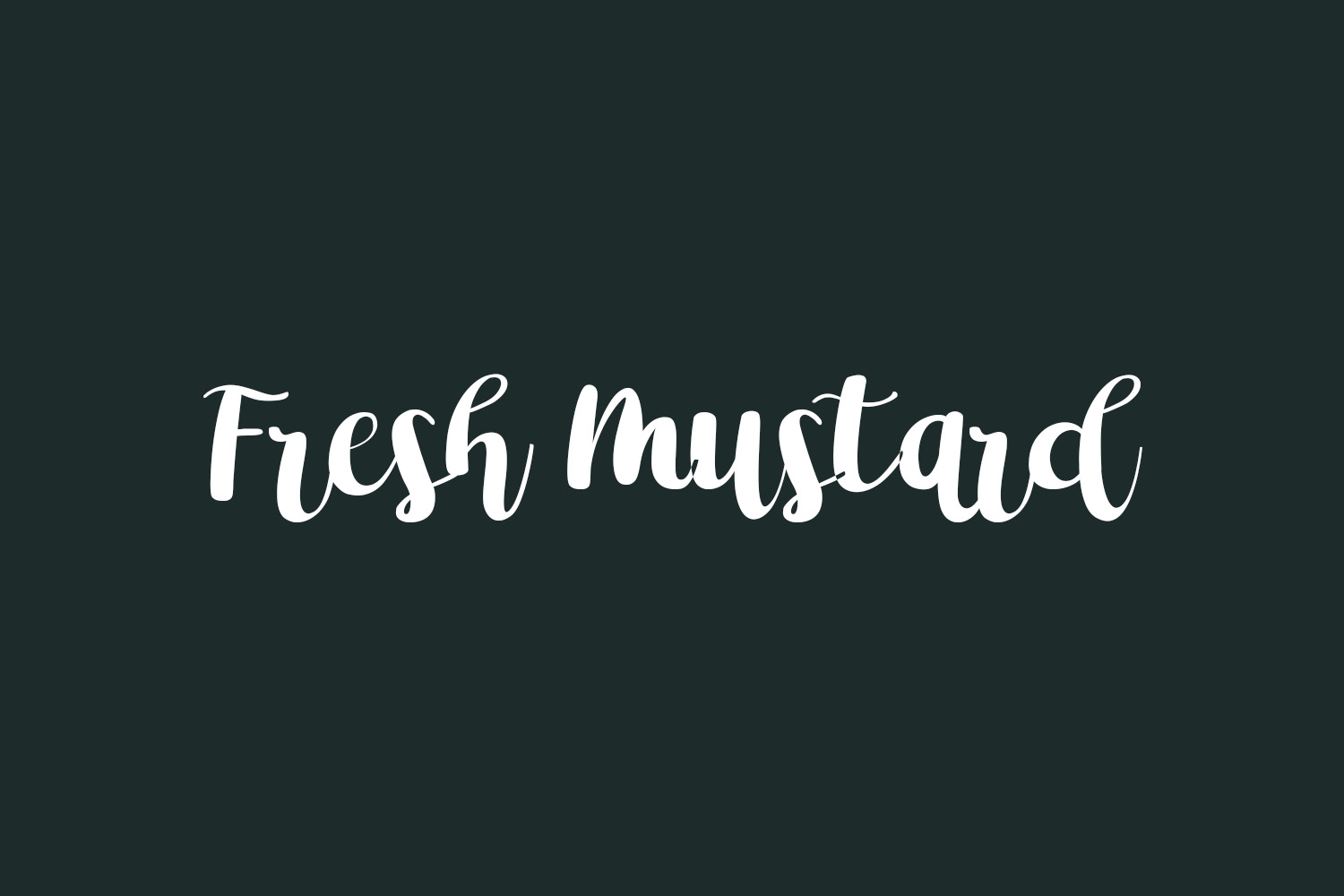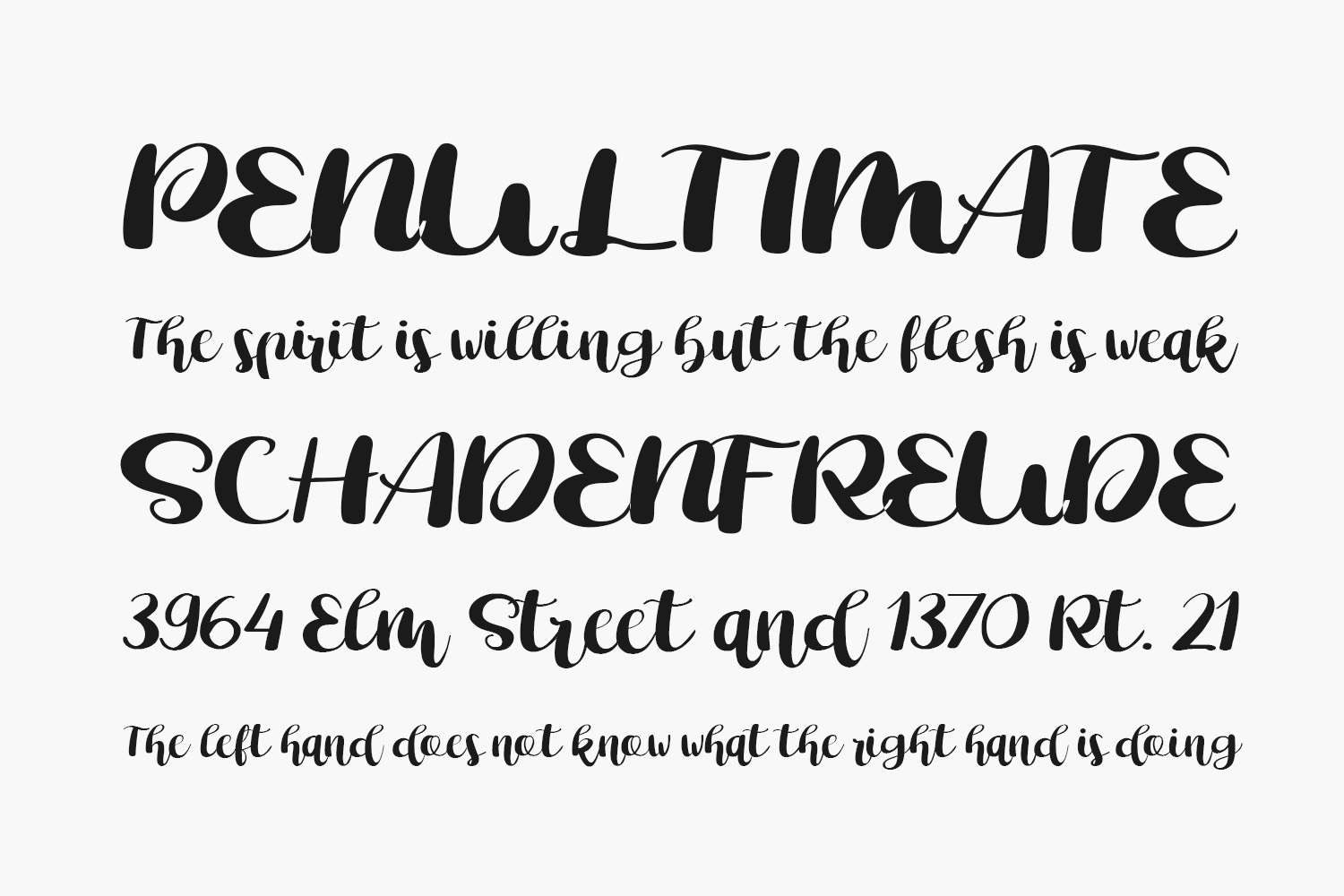
Fresh Mustard Free Font is a playful and cursive handwritten font. Its distinct and well balanced letters make this font a masterpiece. Fall in love with its incredibly versatile style and use it to create spectacular designs. Fresh Mustard Free Font was designed by Nomlimofont and is free for personal use only. Please purchase the full version for commercial use.